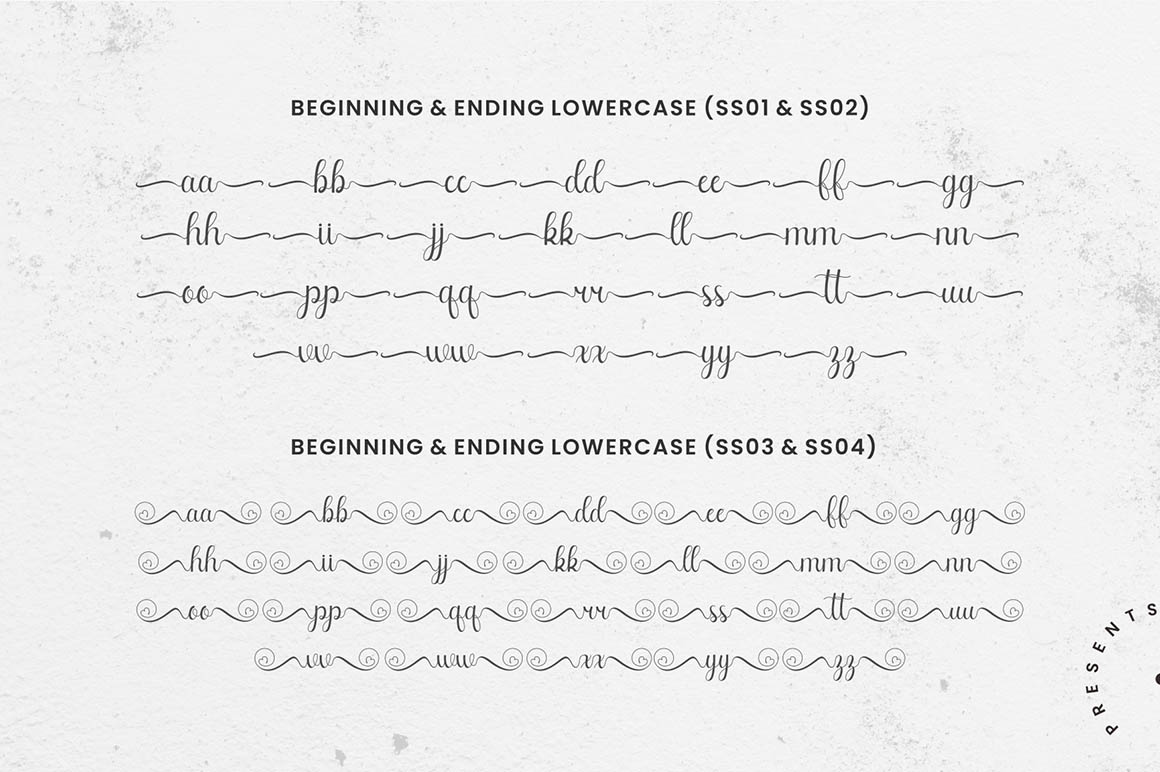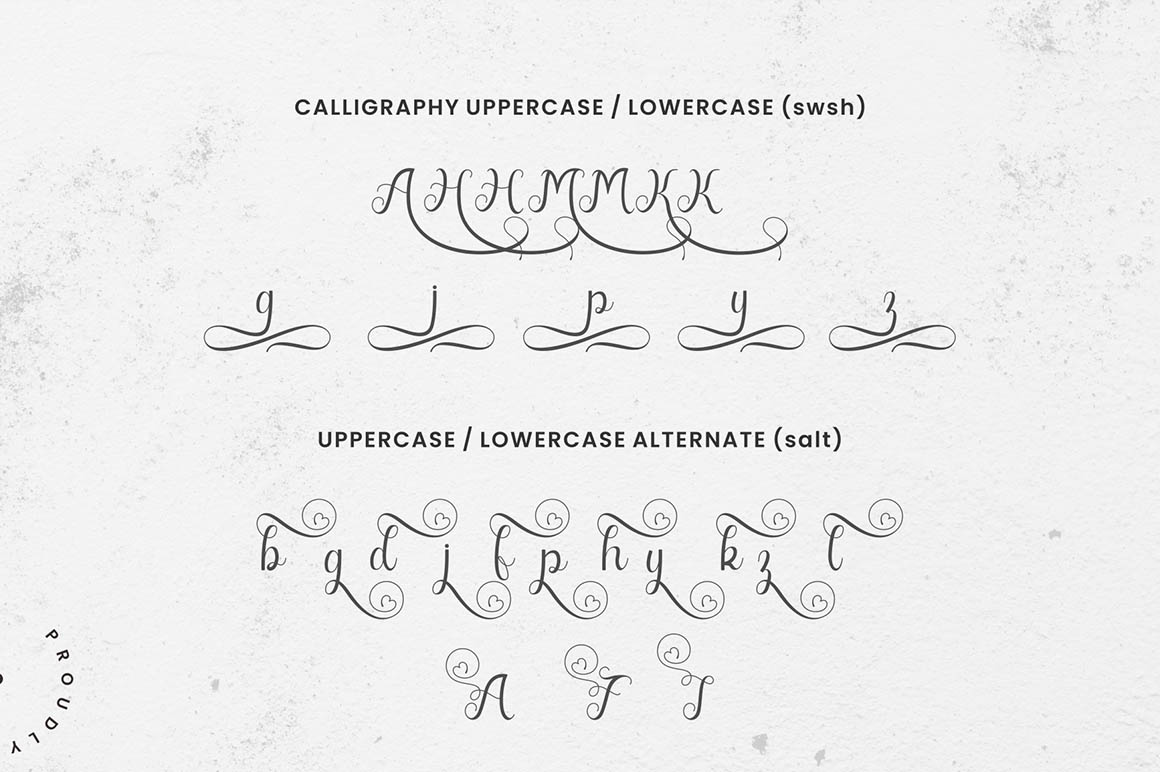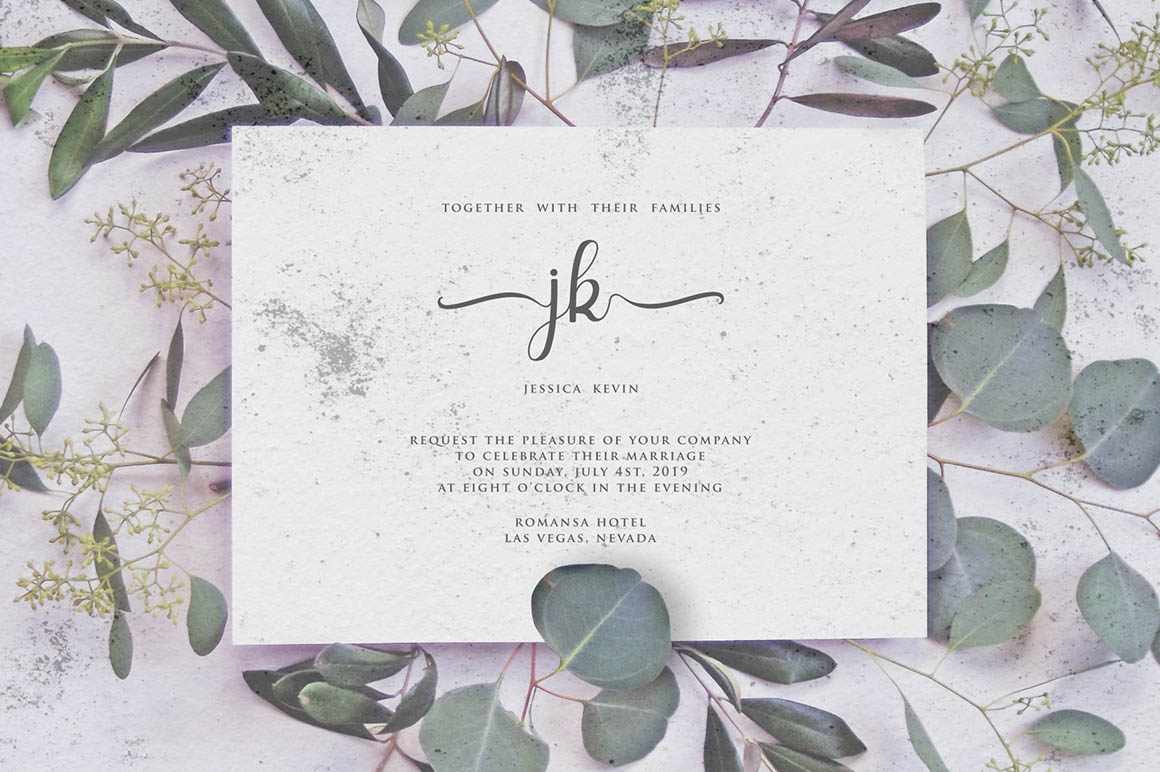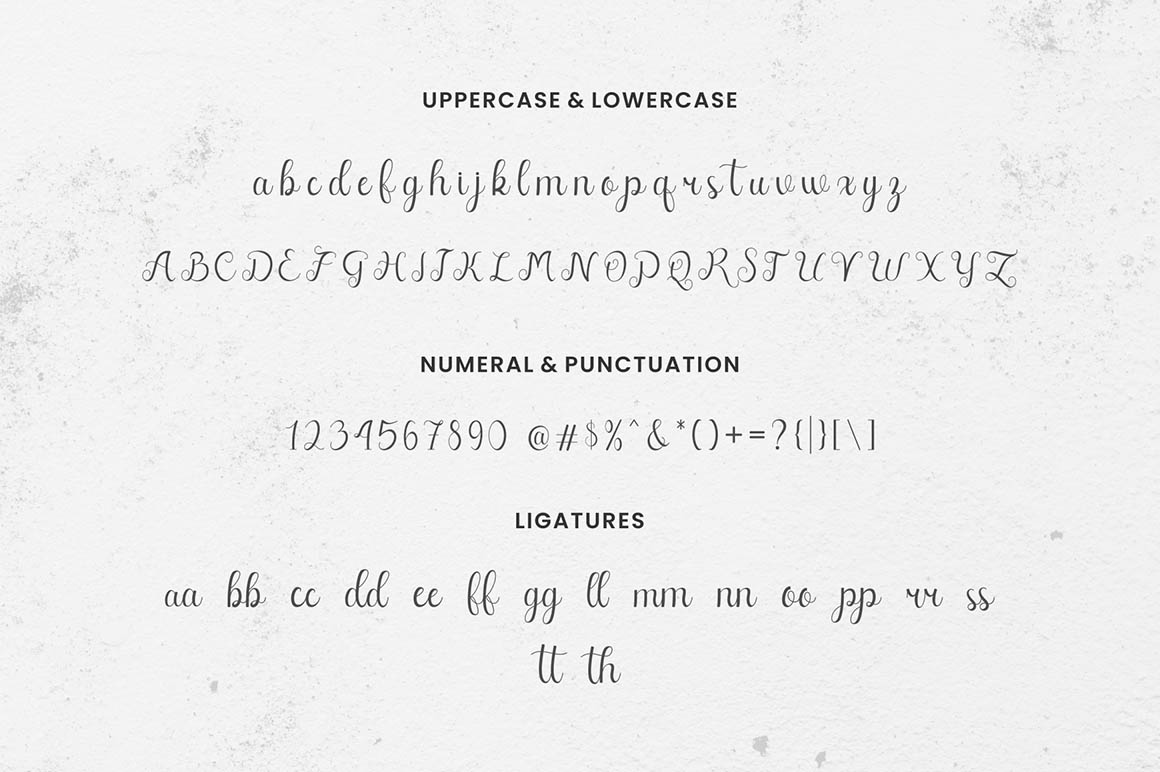
Fellyssa Font
Fellyssa Script Font
It\’s a lovely script font featuring charming, playful characters that seem to dance along the baseline. This font is PUA encoded which means you can access all glyphs and swashes with ease! Add it confidently to your favorite creations and let yourself be amazed by the outcome generated.